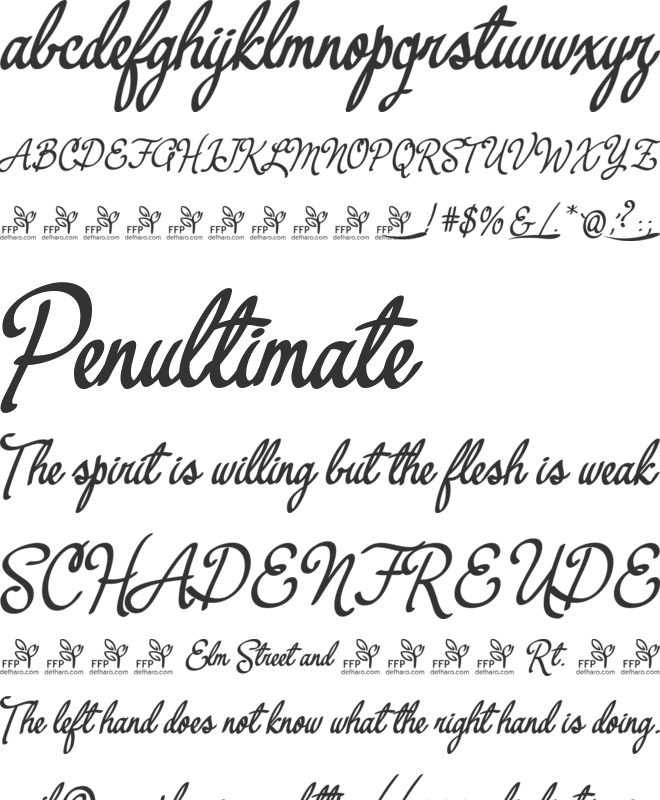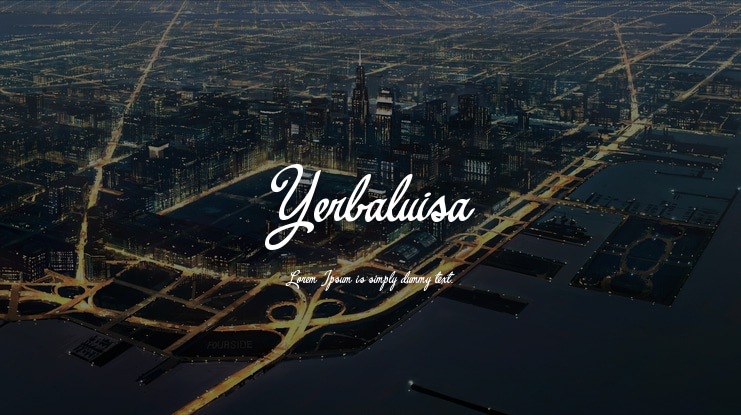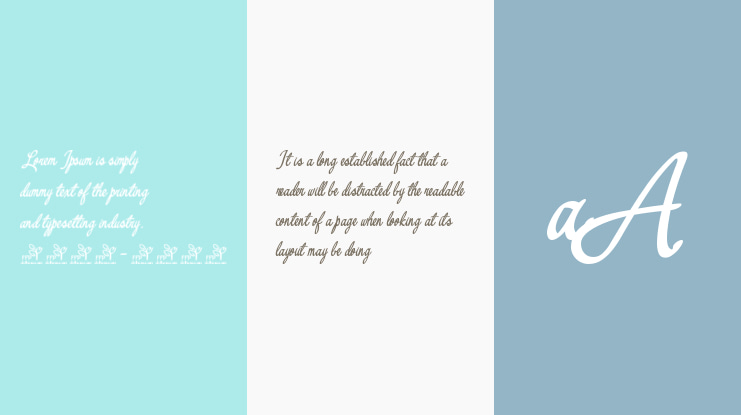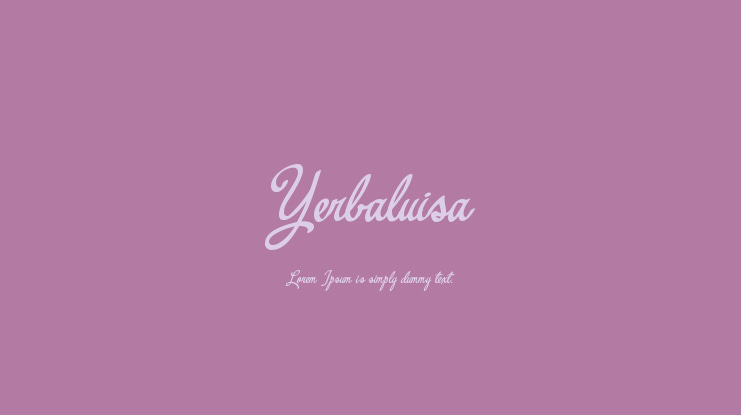
Yerbaluisa Font
Yerbaluisa is a handwritten calligraphic typeface style with concatenated letters and several sets of ornaments and swashes terminals.
Usage keys for ornaments: ( ) [ ] { } | _
Use discretionary ligatures (dlig) to write the default characters.
Bitcoin symbol (ligatures): #b
To use the lowercase letter z alternative use discretionary ligatures (dlig)